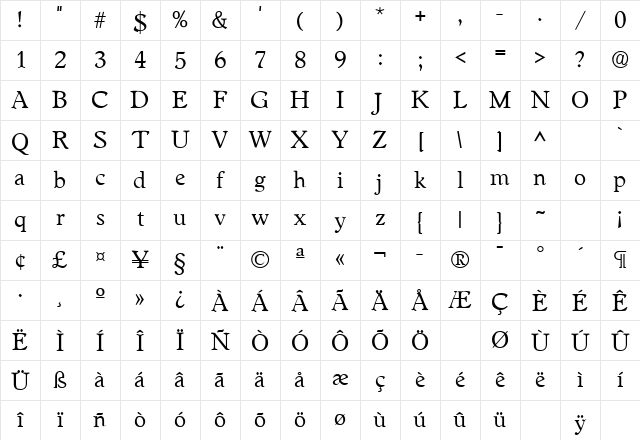
Complete Worcester SF Regular glyph index. Displaying only characters natively supported by Worcester SF Regular font.
Worcester SF is a composed and adaptable typeface that performs quietly and consistently across a wide range of design contexts.